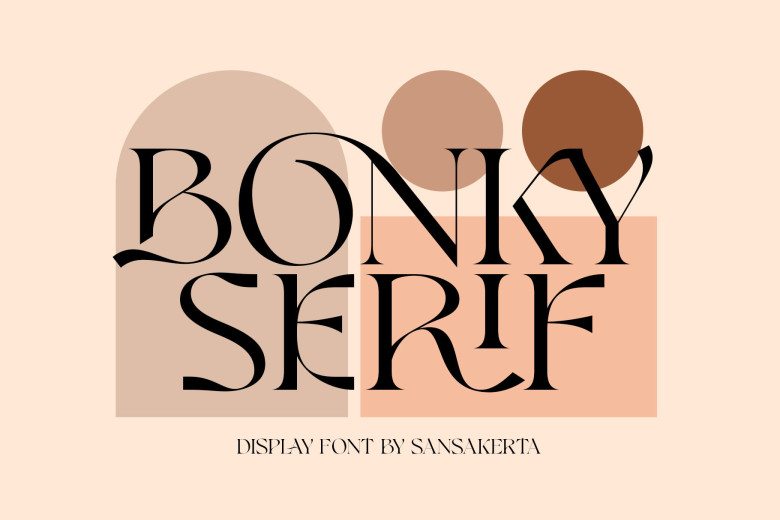
Bonky Serif Font
Bonky serif is a special vintage modern style font. Made with accurate accuracy. With alternative characters and ligatures that make your work very special. It is perfect for branding design, logo, greeting cards, headline packaging. and other designs. Immediately use our fonts to make your work even more amazing.
Bonky Serif Font